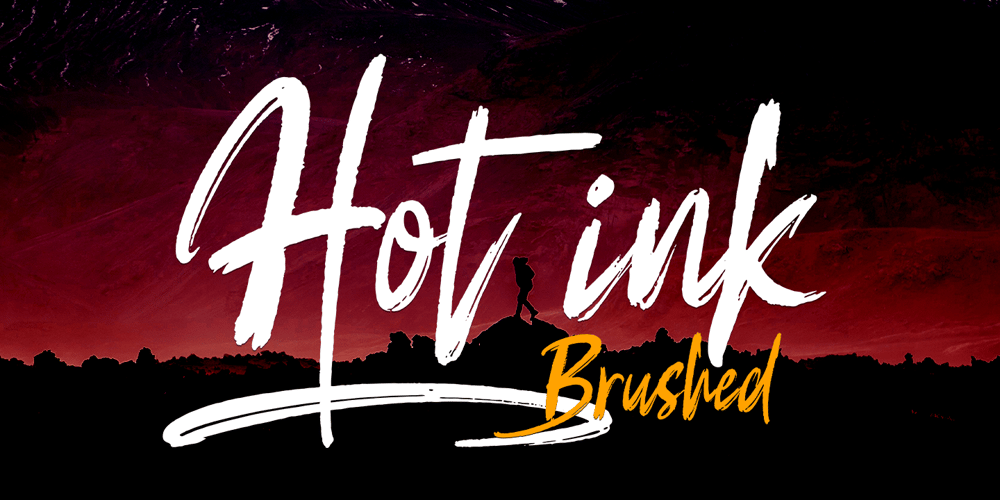
Hot ink
Hot ink font
Hot ink Font Family was designed by Yur Lis and published by Stripes Studio. Hot ink contains 2 styles and family package options. Hot ink a new attractive font that is brushed in a very natural way, detailed and with a perfect texture. Additionally you also have Hot ink Underlines.Perfect for branding, logos, product packaging, posters, invitations, greeting cards, news, blogs, everything needing personal charm, and more.